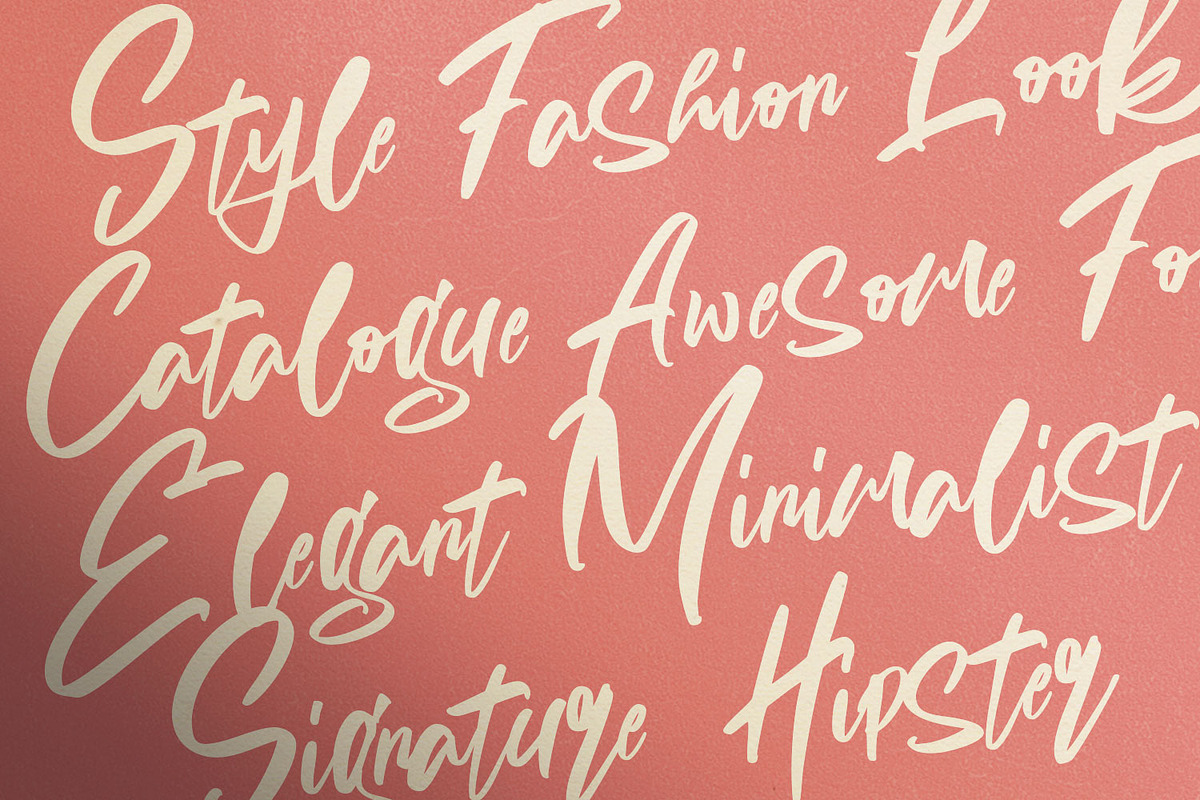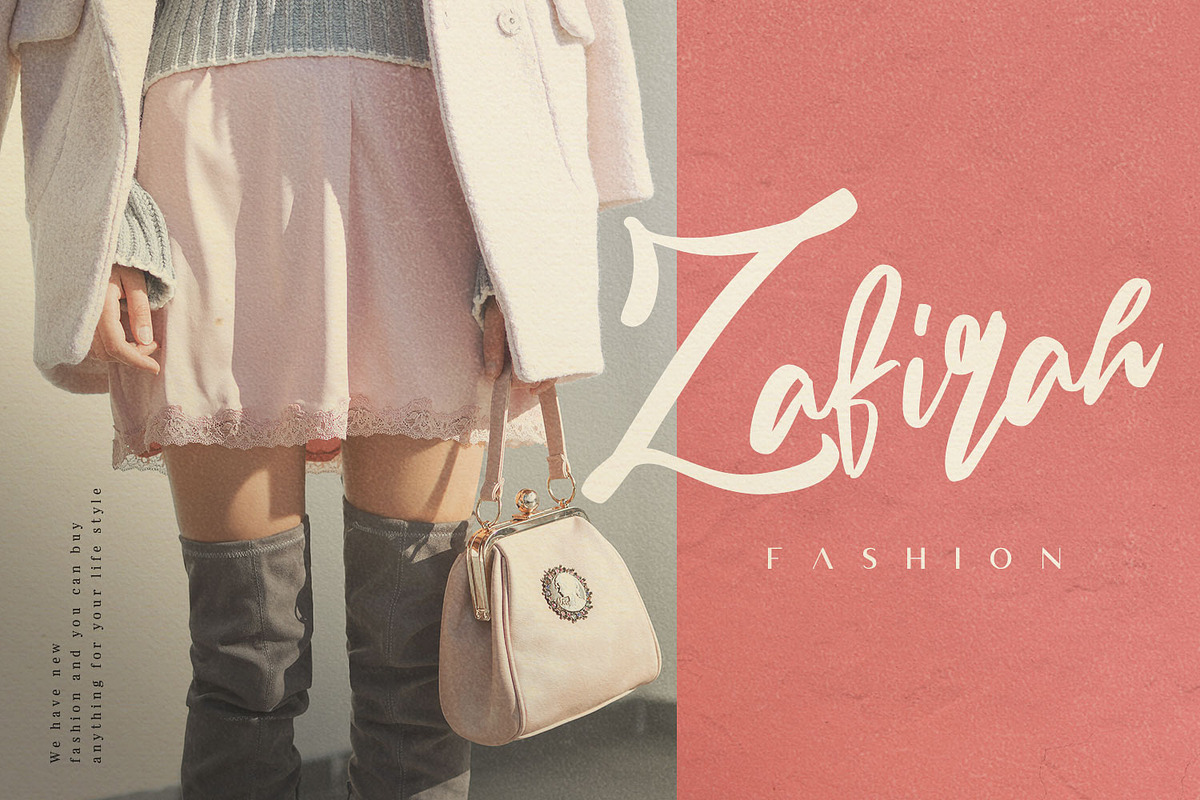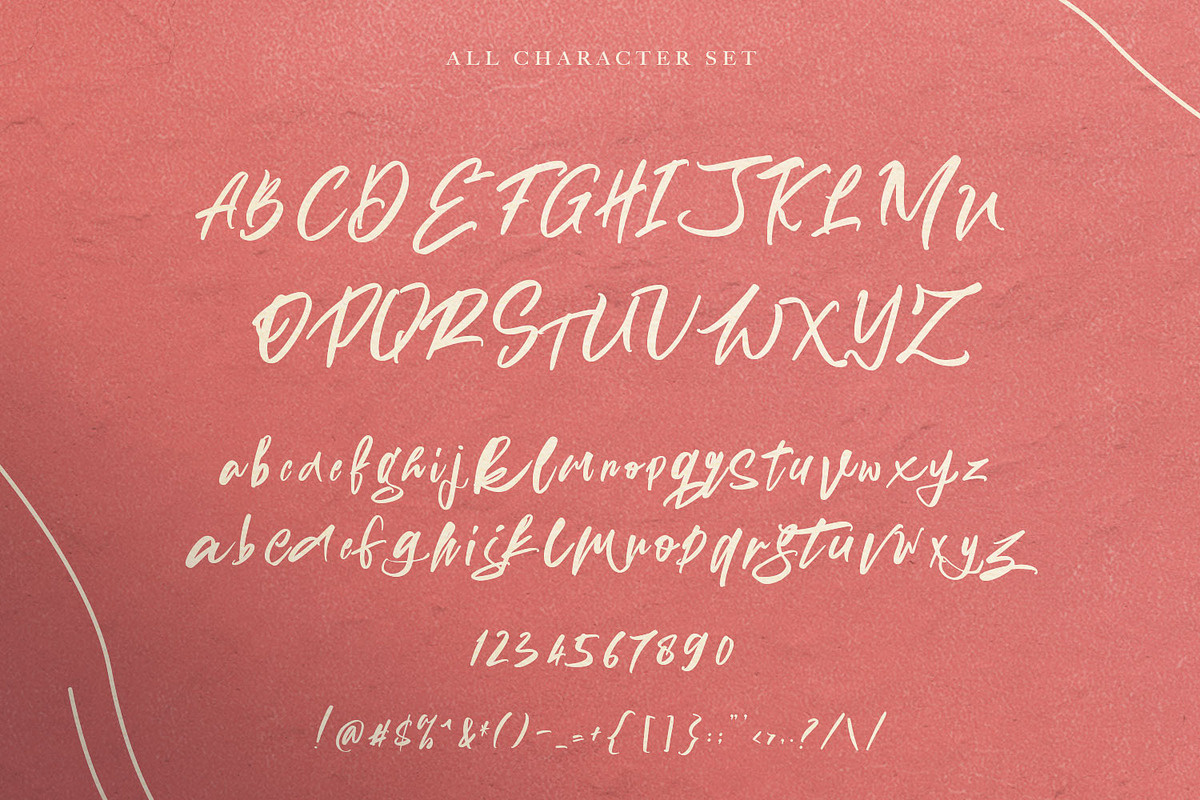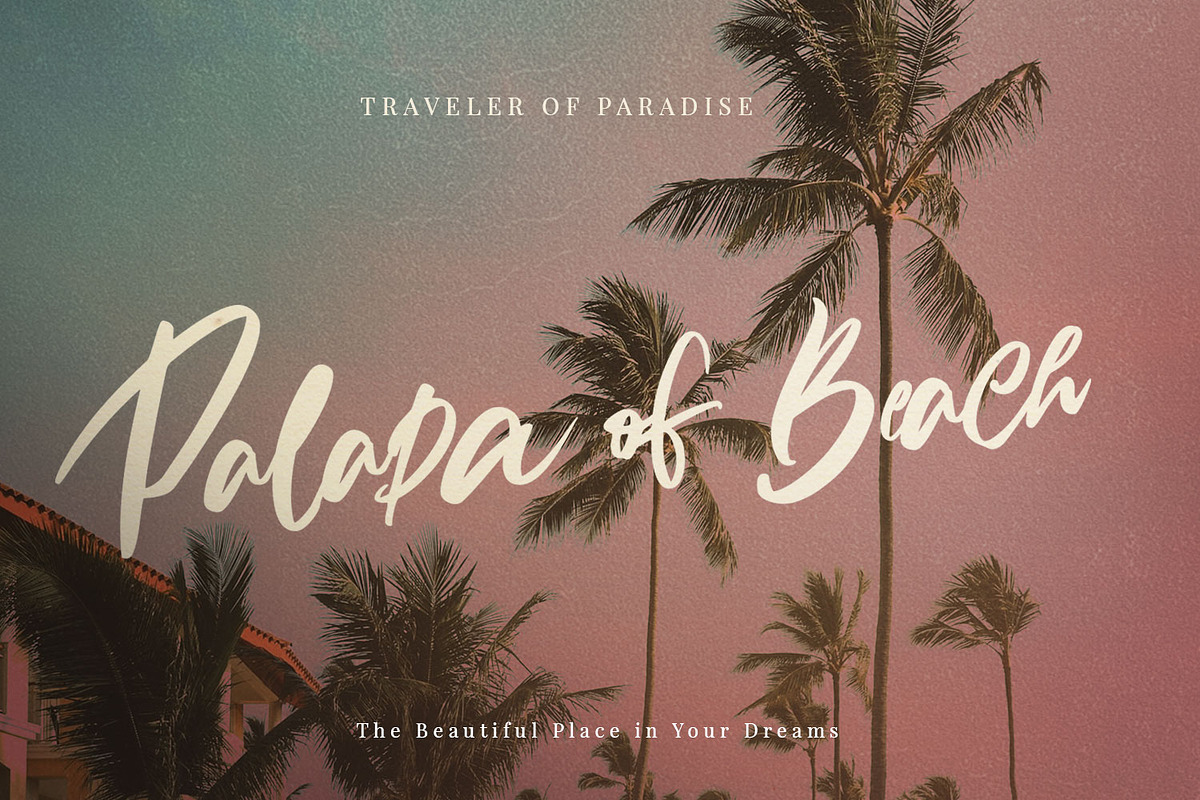
Aliva - Brush Script
Aliva Bruhs Script- a new fresh & modern script with a calligraphy style, a dancing baseline! So beautiful on invitation like greeting cards, branding materials, business cards, quotes, posters, and more!
Aliva Bruhs Script come with more Alternative and more Ligature. The alternative characters were divided into several Open Type features such as Stylistic Sets, Stylistic Alternates and Ligature. The Open Type features can be accessed by using Open Type savvy programs such as Adobe Illustrator, Adobe InDesign, Adobe Photoshop Corel Draw X version, And Microsoft Word. And this Font has given PUA unicode (specially coded fonts). so that all the alternate characters can easily be accessed in full by a craftsman or designer
- Standard ligatures
- Unique ligatures
- Stylistic sets
- SWASH
- International Symbols include